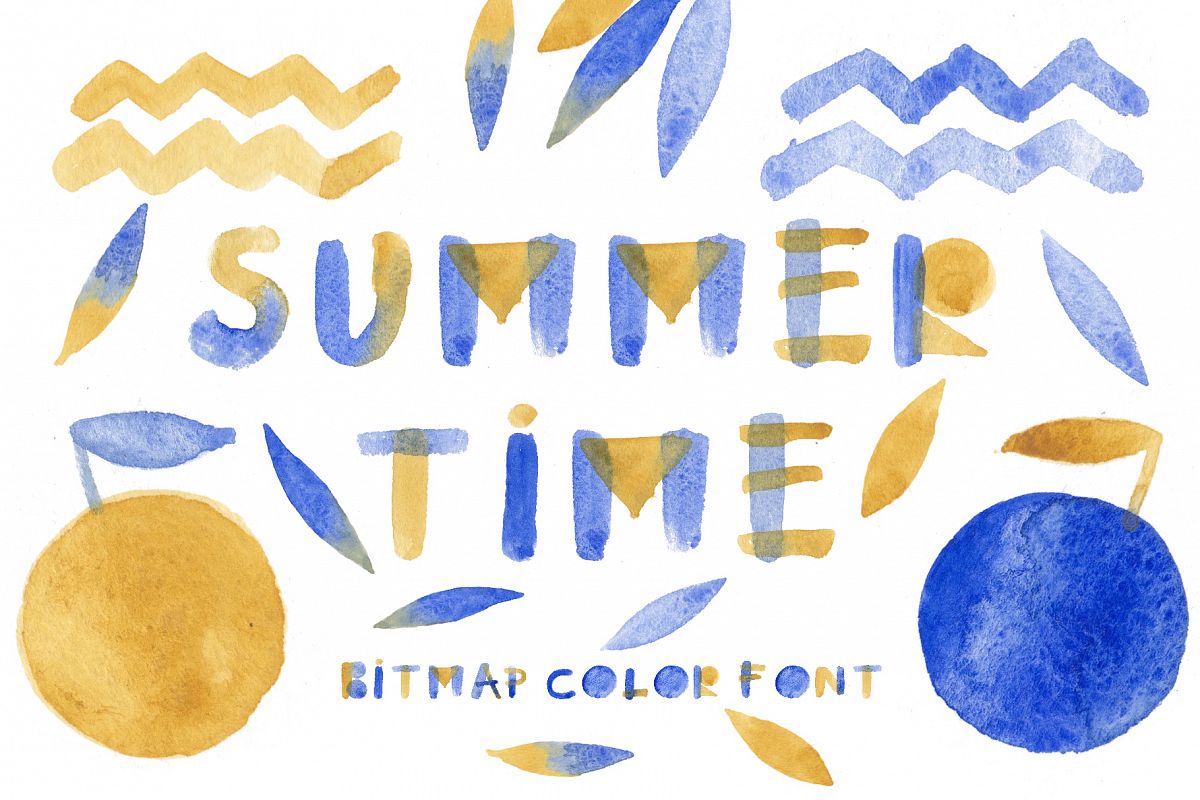
Summertime bitmap color font
I'm happy to present you my new watercolor bitmap OpenType-SVG font – Summertime with Latin and Cyrillic letters! Summertime font contains Latin letter and Cyrillic letter set, numerals and punctuation. This font work nicely for all sorts of things including t-shirt design, typographic art, children products, social media images and so much more!Summertime font zip. folder include: